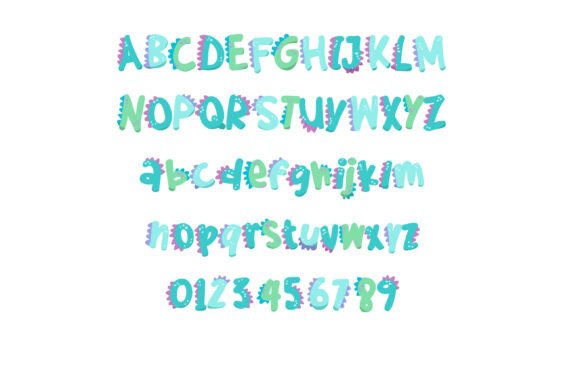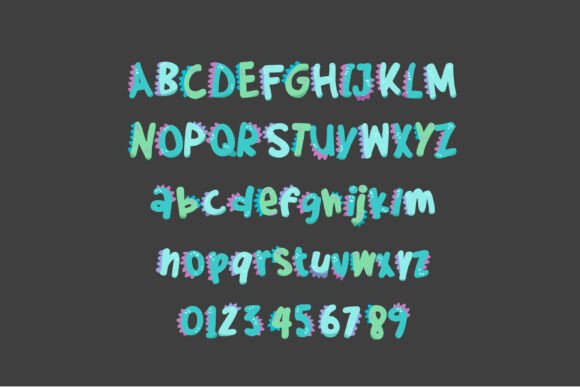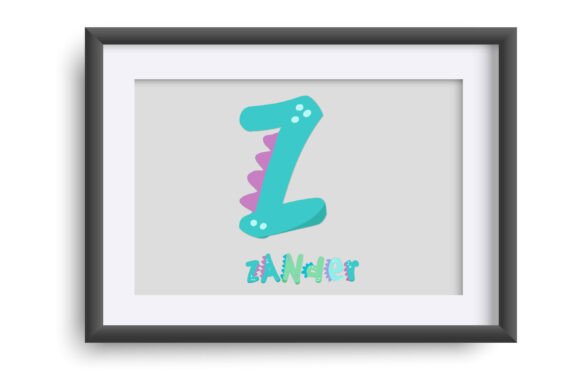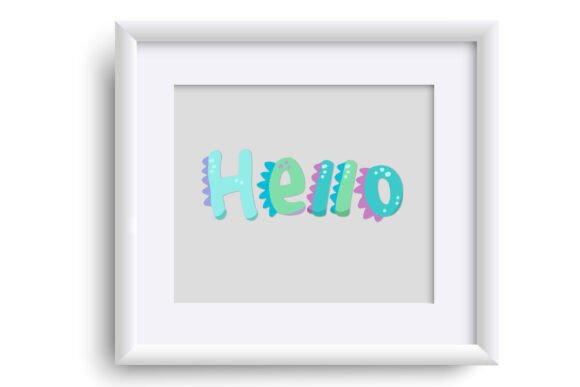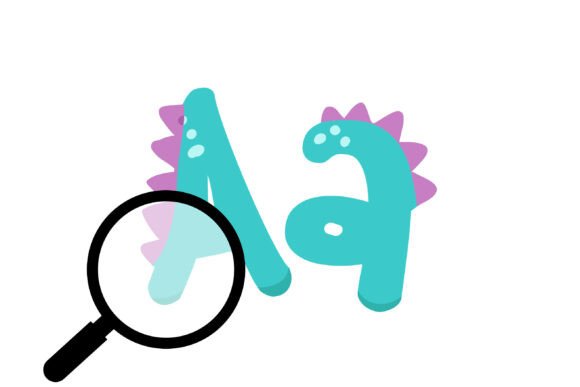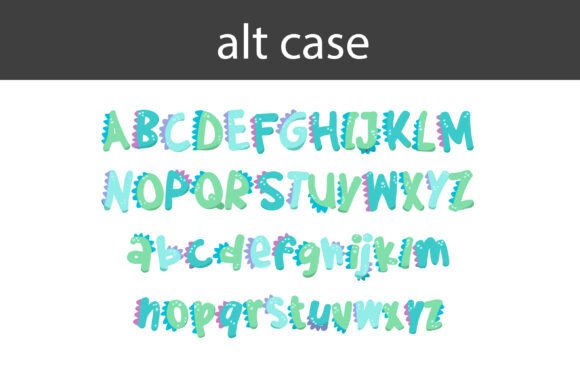
Introduction to Dino Writer Baby Font
Roar into creativity with Dino Writer Baby, a full-color SVG font that brings the prehistoric world to life with a friendly, nursery-style twist.
This playful typeface features chunky, organic letterforms in shades of teal, aqua, and mint, uniquely detailed with purple dinosaur โspikesโ and whimsical white spots Each character is designed to feel like a friendly prehistoric creature, making it an exceptional choice for dinosaur-themed birthday invitations, nursery decor, childrenโs apparel branding, and educational museum headers.
Key Features of Dino Writer Baby Font